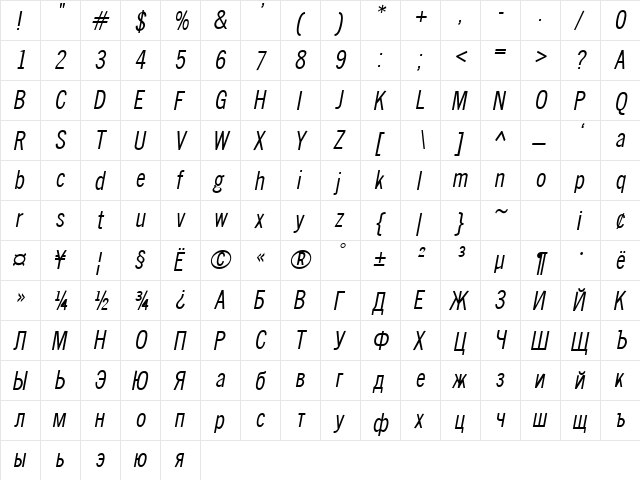
NewsCondensed Oblique
Design Context for NewsCondensed Typeface
NewsCondensed offers clean, dependable letterforms without strong stylistic allegiance, making it a practical choice for designers who need flexibility. The slanted form adds forward momentum and visual energy. The condensed width makes it efficient for tight spaces without sacrificing legibility.
Pro Tip: Use NewsCondensed for emphasis, pull quotes, and subheadings where its slanted energy can add rhythm to the layout.